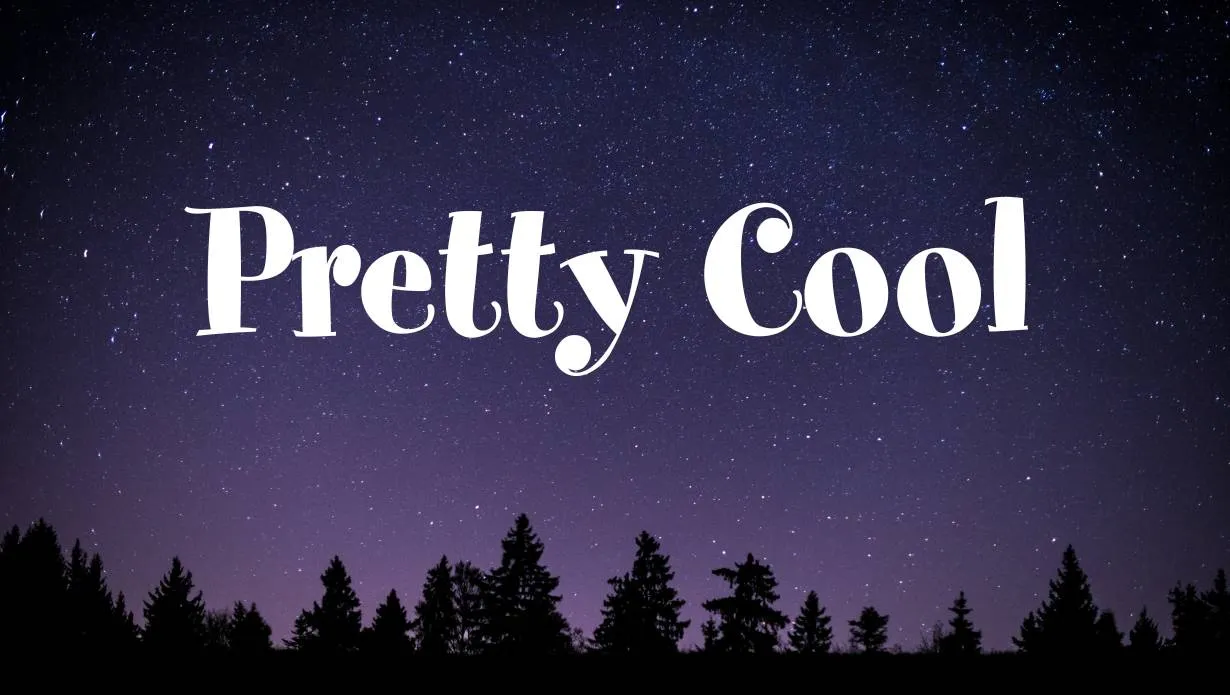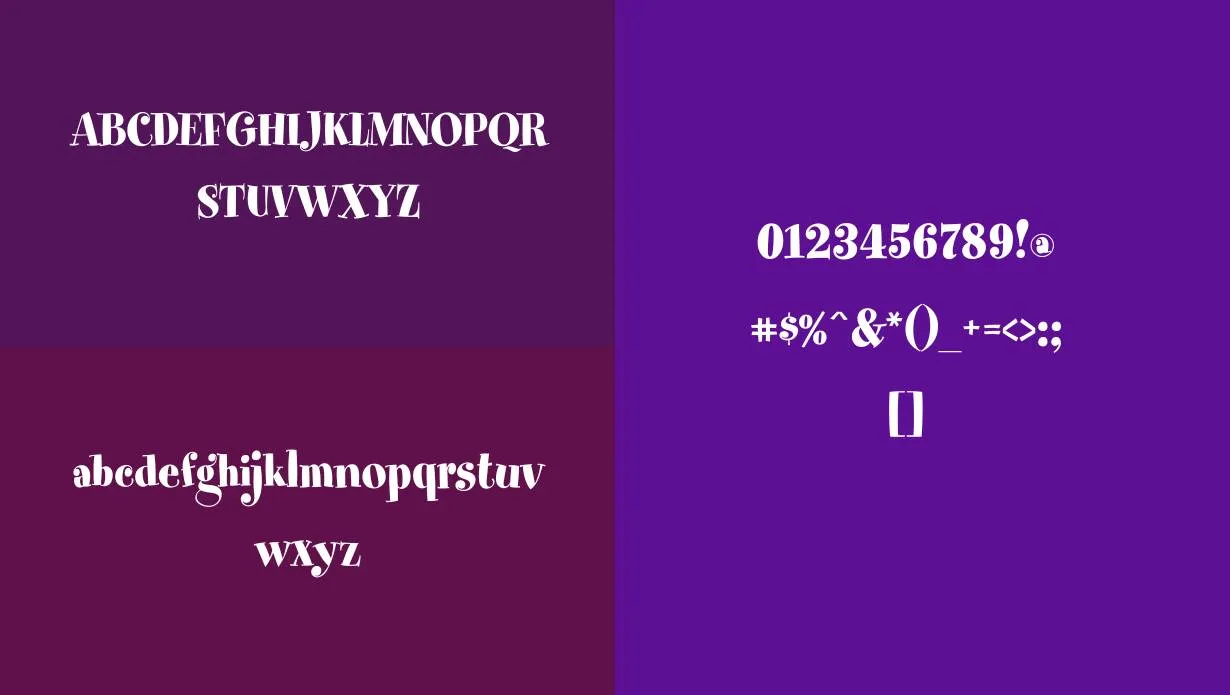
Spumoni Font is not just a font; it’s a party of letters! This playful typeface adds a splash of joy and creativity to your text. With characters that dance across the page, it’s like a celebration in every word.
Spumoni Font is perfect for projects that demand a lively and whimsical touch, turning your design into a vibrant fiesta of fonts. When your aim is to elicit the best possible response from your audience, combining the Angelina font with this font family creates a powerful pairing.